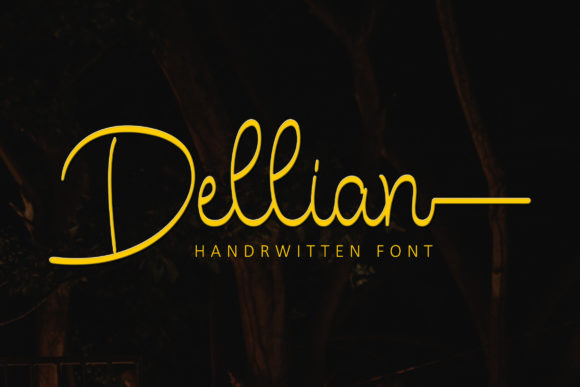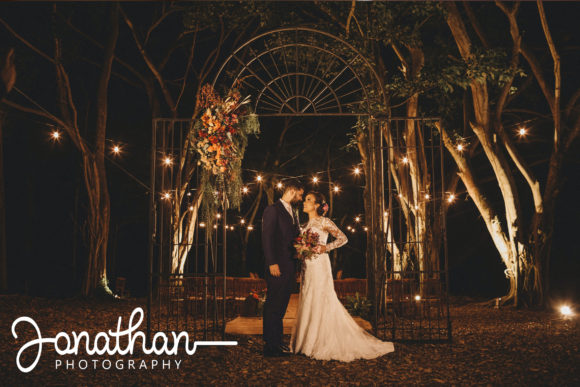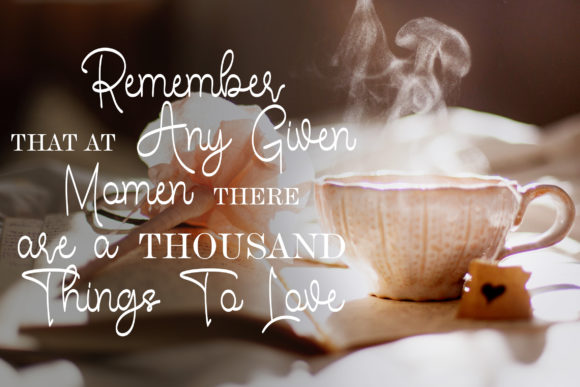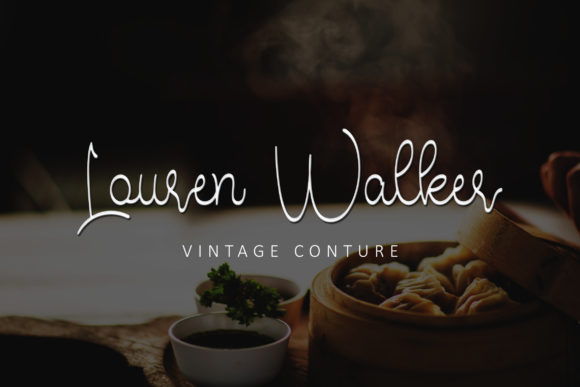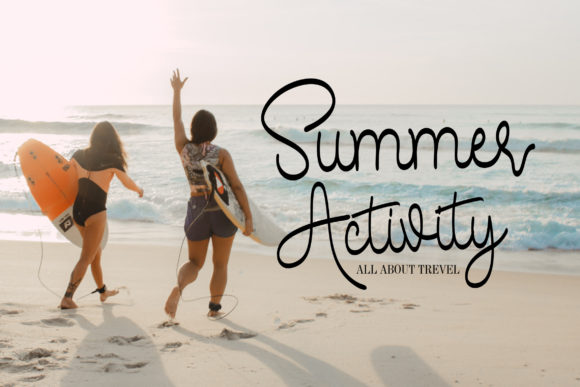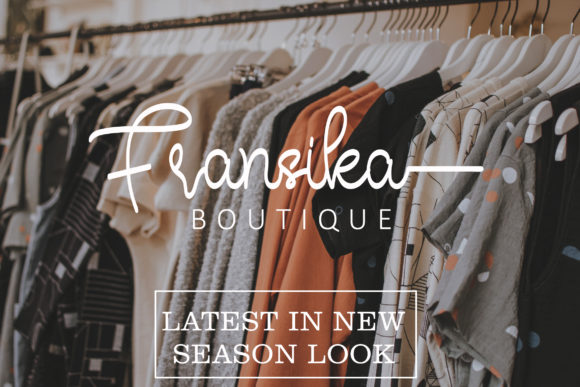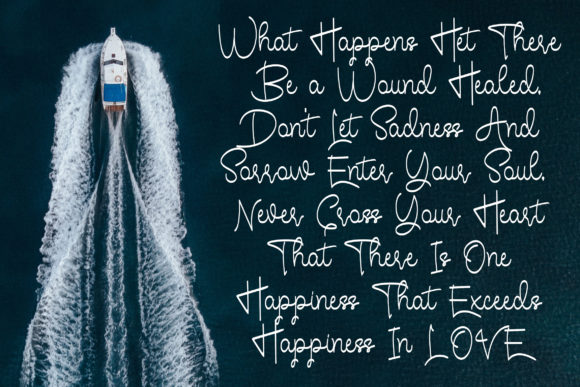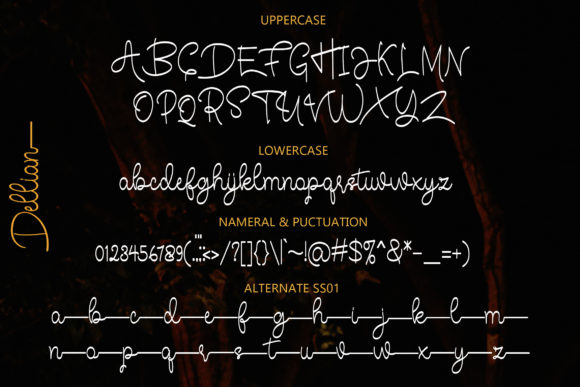
Dellian Font
About Dellian Font
Dellian is a sweet, soft hand-lettered script font. It features an incredibly classic style, while still keeping a friendly feel. Fall in love with its authentic feel and use it to create gorgeous wedding invitations, beautiful stationary art, eye-catching social media posts, and cute greeting cards.